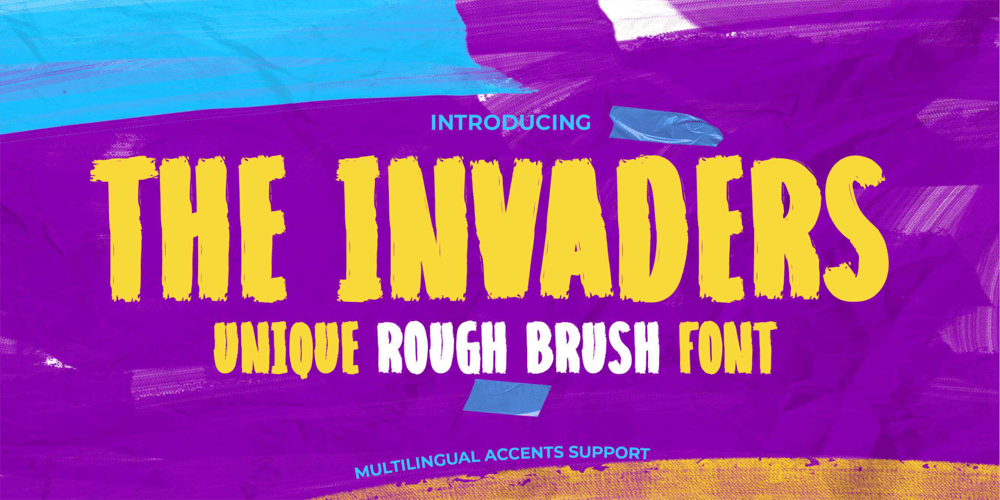
The Invaders
The Invaders font
The Invaders Font Family was designed by Abdul Malik Wisnu, Anang Fibriyanto and published by Gassstype. The Invaders contains 1 styles and family package options. Here comes a New font,Introducing THE INVADERS It’s Unique Rough Brush Font is a Strong Style and classy style, this font is great for your creative projects such as watermark on photography, and perfect for logos & branding, invitation,advertisements,product designs, stationery, wedding designs,label ,product packaging, special events or anything that need handwritting taste.THE INVADERS a natural Hand Drawn feel. This handmade font will make your design has a beautiful natural touch for each details. It is perfect for any design project as Invitation,logo, book cover, craft or any design purposes,photos, photography overlays, signs, window art, scrapbooking, tags and so much more!That is THE INVADERS has charming, authentic and relaxed characteristic more natural look to your text.